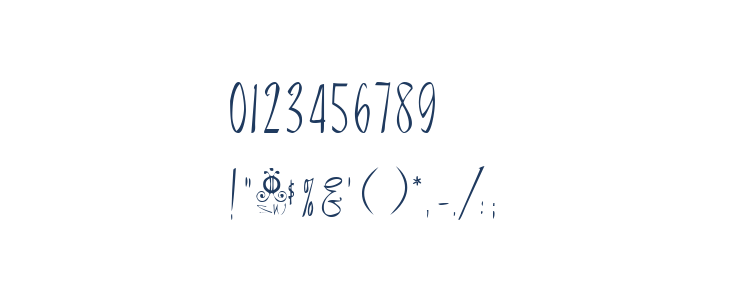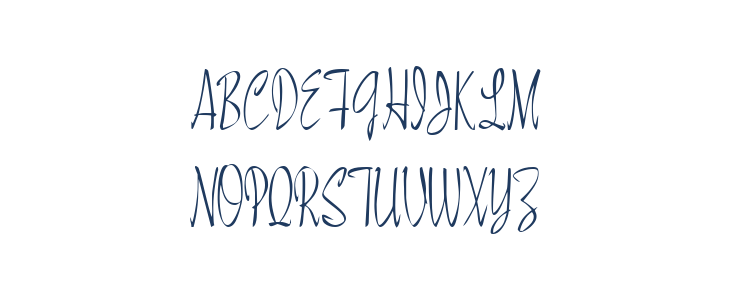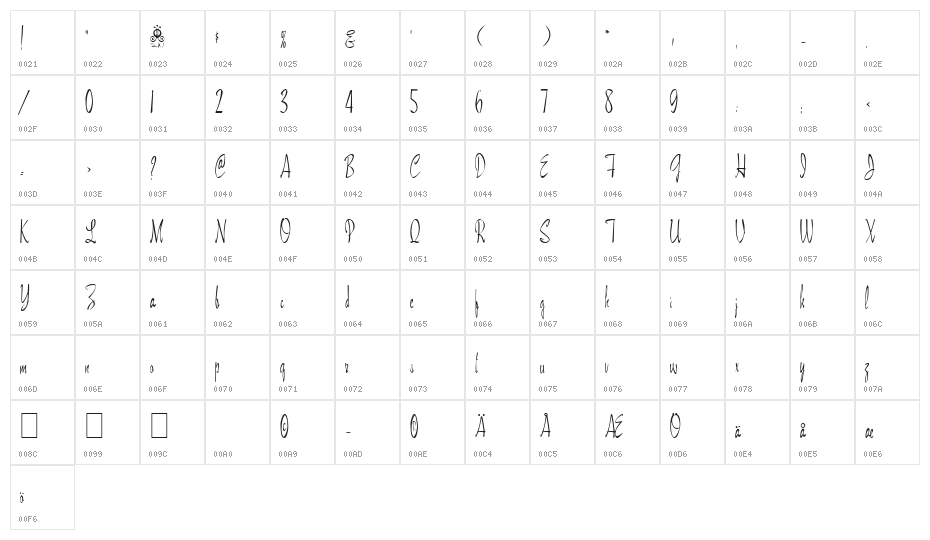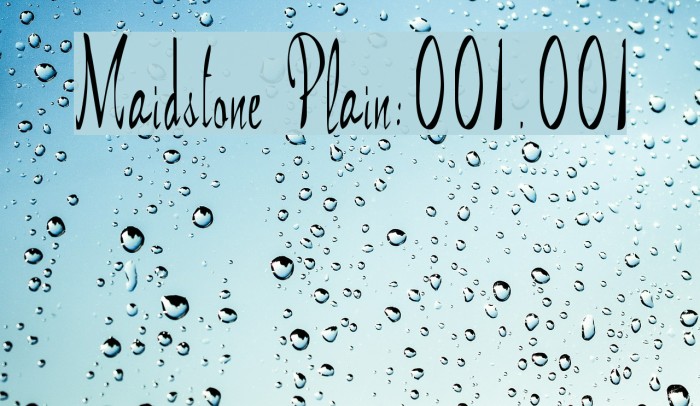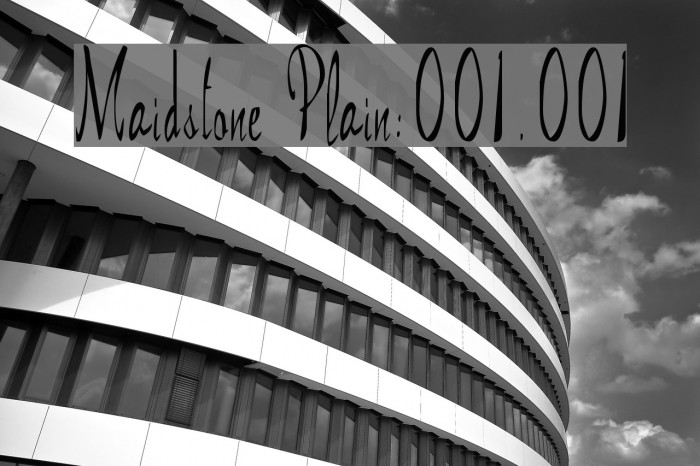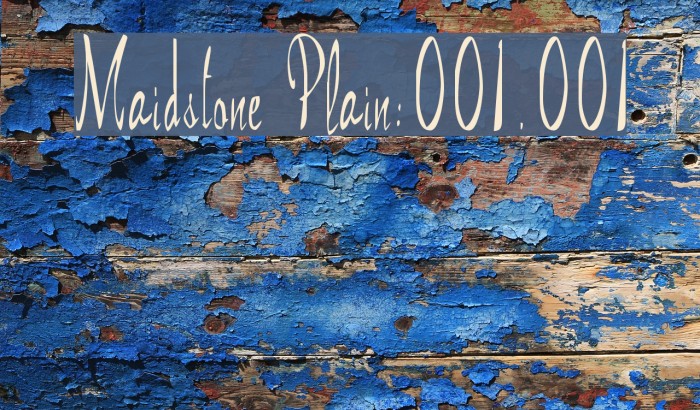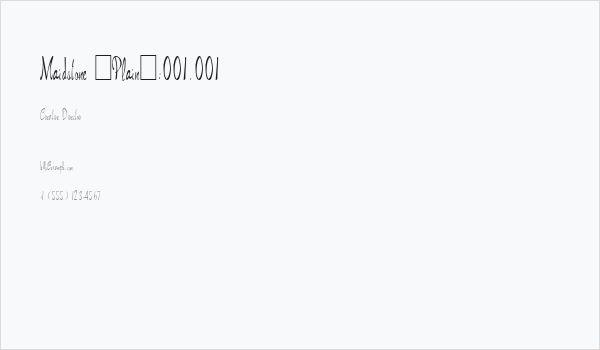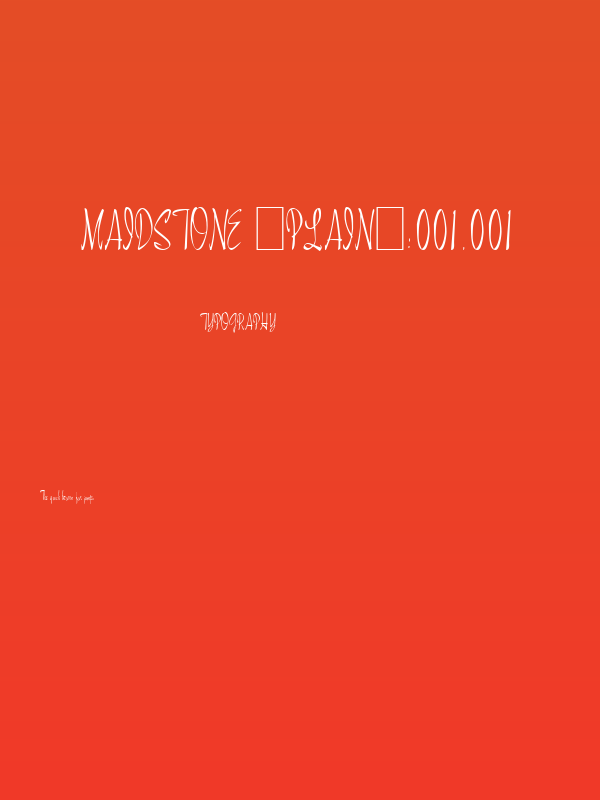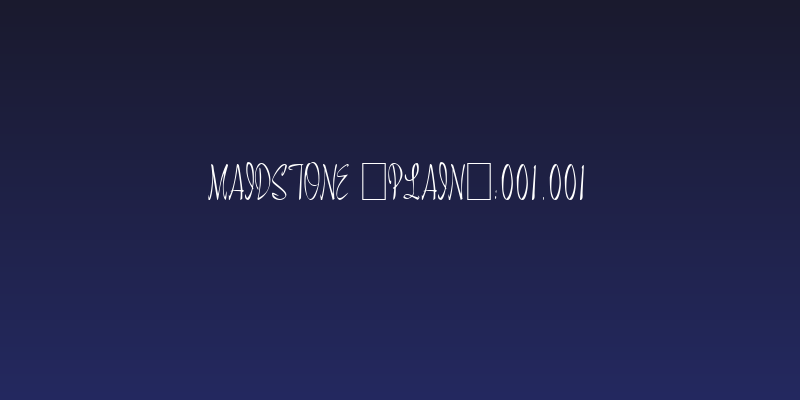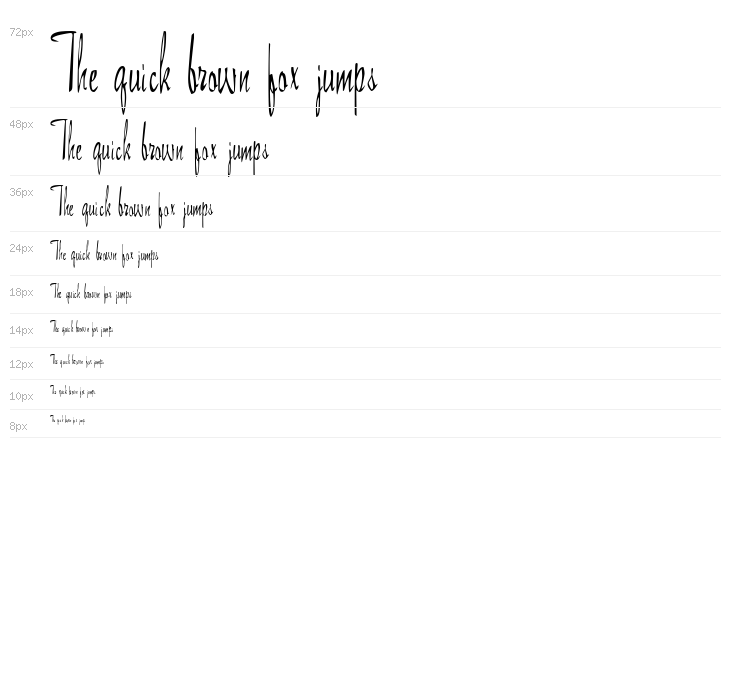
Maidstone [Plain]:001.001 Font
Maidstone [Plain]:001.001 Description
This font features a distinctive handwritten style with elegant, flowing curves and a slightly whimsical touch. The uppercase letters are tall and narrow, with exaggerated loops and swirls that give them a playful yet sophisticated appearance. The lowercase letters maintain a consistent style, with smooth, fluid lines that enhance readability while retaining a unique character. The numerals are similarly styled, with a consistent height and a touch of flair in their design. Special characters are creatively integrated, adding to the font's overall charm. This font is ideal for projects that require a personal, artistic touch, such as invitations, greeting cards, or branding materials.